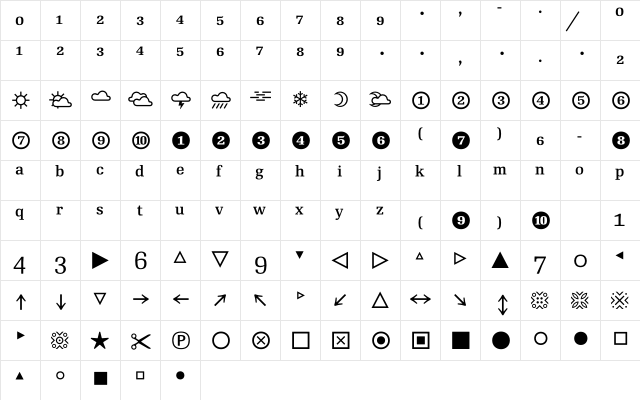
RePublic Book Regular Expert
Design Context for RePublic Book Typeface
RePublic Book takes a measured approach to typography — its balanced proportions and neutral character make it a reliable workhorse for both digital and print work.
Pro Tip: Pair RePublic Book with a font of contrasting weight or personality to build a more expressive typographic hierarchy.